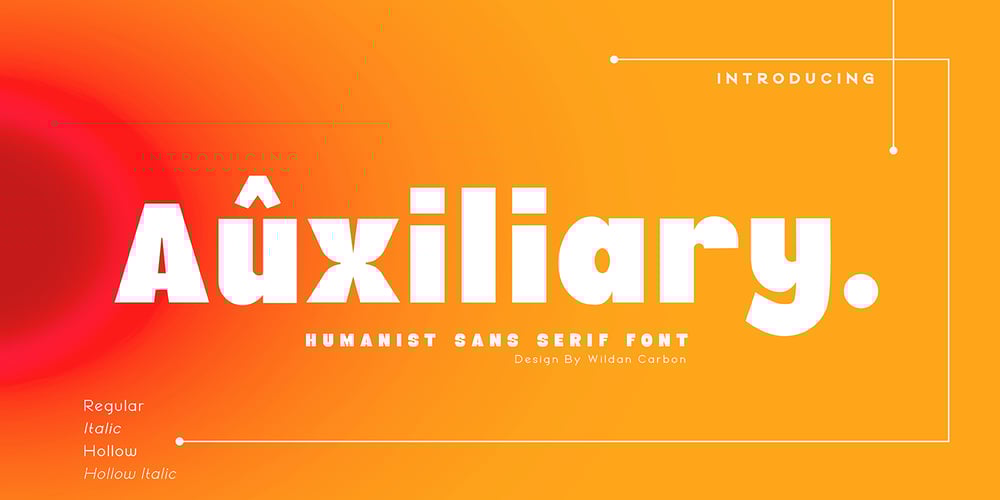
Auxiliary
Auxiliary font
Auxiliary Font Family was designed by Wildan Carbon and published by Wildan Type. Auxiliary contains 4 styles and family package options. Auxiliary is a humanist sans serif font. Make it more interesting and dynamic. Auxiliary is designed for content display and text. Maximizes thickness while maintaining balance in each shape. This is perfect for any type of creative project.Auxiliary come with 4 styles plus Multilingual support.. That is Regular, Italic, Hollow, and Hollow Italic. Makes every project you work on easier, and will certainly be awesome!